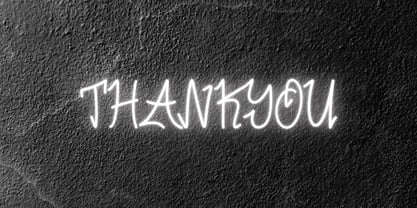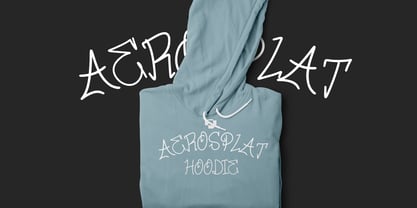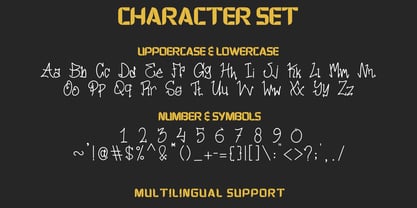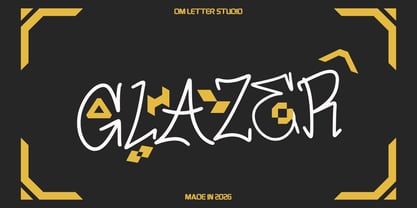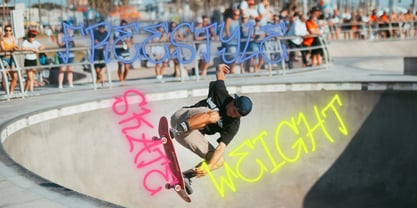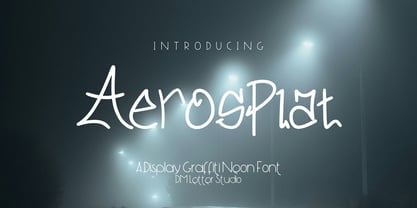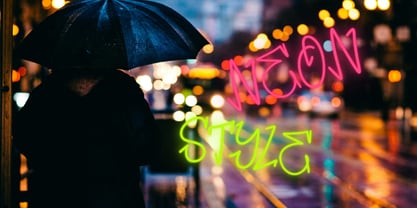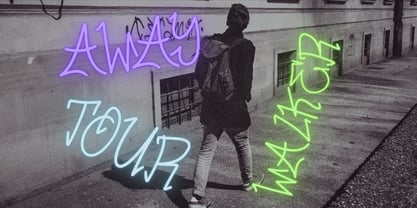
Aerosplat
von DM Studio
Die Schriftfamilie Aerosplat wurde von Dimas Prasetyo entworfen und von DM Studio veröffentlicht. Aerosplat enthält 1 Stile. Mehr über diese Familie
Meet Aerosplat, the Display Thin Graffiti Font Aerosplat is a thin graffiti display font built for fast, sharp, street-style typography. The strokes feel like quick aerosol tags with clean edge control, giving you that urban vibe without turning messy. Because the lines stay slim and deliberate, Aerosplat works great for modern layouts that need attitude but still want readability. Use it for posters, streetwear branding, album covers, skate graphics, stickers, social media headers, and bold quote designs. As a result, your designs feel fresh, edgy, and instantly recognizable. Why Aerosplat sells First, Aerosplat is easy to install and runs smoothly in Canva, Photoshop, and Illustrator. Next, the thin structure keeps your layouts lightweight, so it pairs well with heavy imagery and bold shapes. Then your designs build faster because the style is consistent across letters, making words look cohesive at a glance. Moreover, Aerosplat gives you a graffiti feel that fits both minimal and loud compositions. Therefore, it’s a strong choice for creators who want street energy with a cleaner finish. Fast layouts with the Aerosplat Thin Graffiti Font Start with short titles and stacked words to amplify the tag look. After that, pair Aerosplat with a solid sans serif for supporting text like dates, product info, or captions. Because thin strokes can disappear on busy backgrounds, place it on a clean block, subtle gradient, or lightly textured wall surface. In addition, try slight letter spacing when using it small, so each stroke stays readable. Finally, save quick palettes like black and white, charcoal and neon accents, sand and black, or red and cream for repeatable street layouts. Creative uses and quick wins Streetwear logos, hoodie prints, and merch drops Posters, flyers, album covers, and event graphics Skate stickers, label stamps, and packaging accents Social media headers, thumbnails, and quote posts What you get Uppercase and lowercase letters Numbers and basic punctuation Design tips for Aerosplat Use Aerosplat for headlines, logos, and short statements, then keep body text clean and simple. Also, avoid shrinking it too much, since thin strokes need space to breathe. For print, export at 300 DPI and test a small proof to confirm line clarity. For digital, scale up slightly so strokes stay sharp on mobile screens. Finally, if you want extra punch, add a simple outline or place it on a solid shape instead of adding heavy effects.